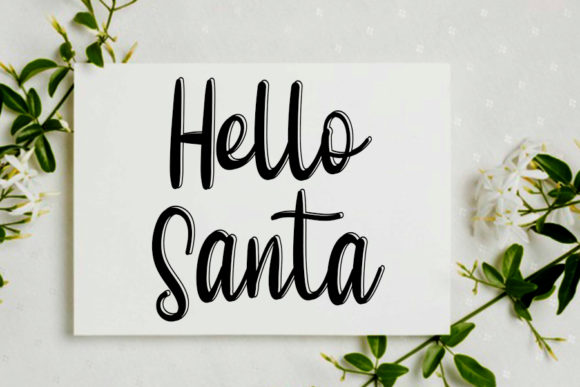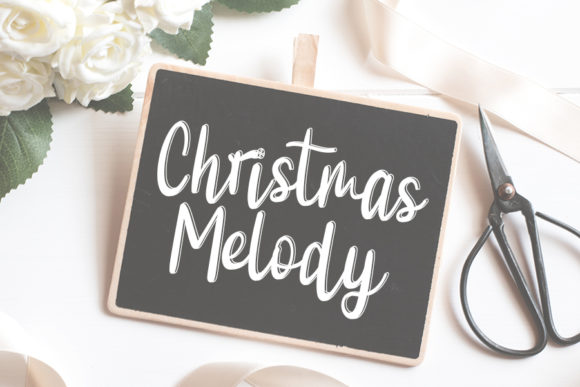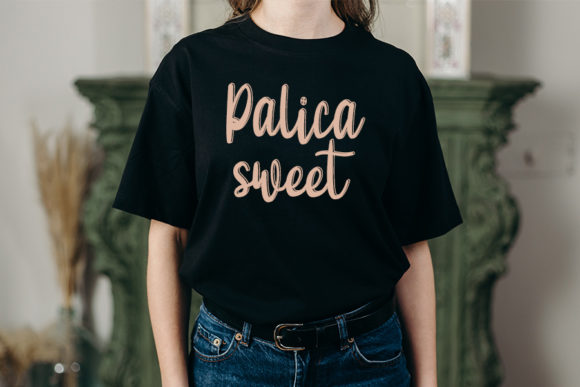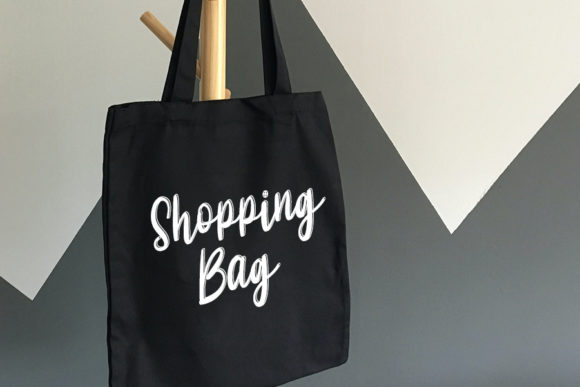
The Daily Dolly Font: A Delicate and Elegant Companion for Your Design Journey
I still remember the day I stumbled upon the Daily Dolly font while working on a project for a client’s wedding invitation. I had tried countless fonts, but none seemed to capture the essence of elegance and whimsy that I was looking for. That was until I laid eyes on Daily Dolly – its delicate and rounded letters instantly won my heart. In this article, I’ll share my experience with Daily Dolly, its features, and how to make the most of this beautiful font.
An Honest Review of Daily Dolly
What I Love About Daily Dolly ✨
- ✅ Delicate and elegant handwritten style
- ✅ Well-rounded letters that exude warmth and sophistication
- ✅ Incredibly versatile, suitable for a wide range of design projects
- ✅ Easy to read, even in smaller font sizes
- ⚠️ Limited availability of stylistic alternates, which might limit its use in certain design contexts
- ⚠️ May not be the best fit for very bold or attention-grabbing designs
A Practical Guide to Using Daily Dolly
The Story Behind Daily Dolly
Daily Dolly was designed with the intention of creating a font that exudes elegance and sophistication. Its creator aimed to craft a font that would be versatile and easy to read, making it suitable for a wide range of design projects. The result is a beautiful and delicate handwritten font that has captured the hearts of designers and crafters alike.
| What makes Daily Dolly unique? | Daily Dolly’s unique feature is its delicate and elegant handwritten style, making it perfect for designs that require a touch of sophistication. |